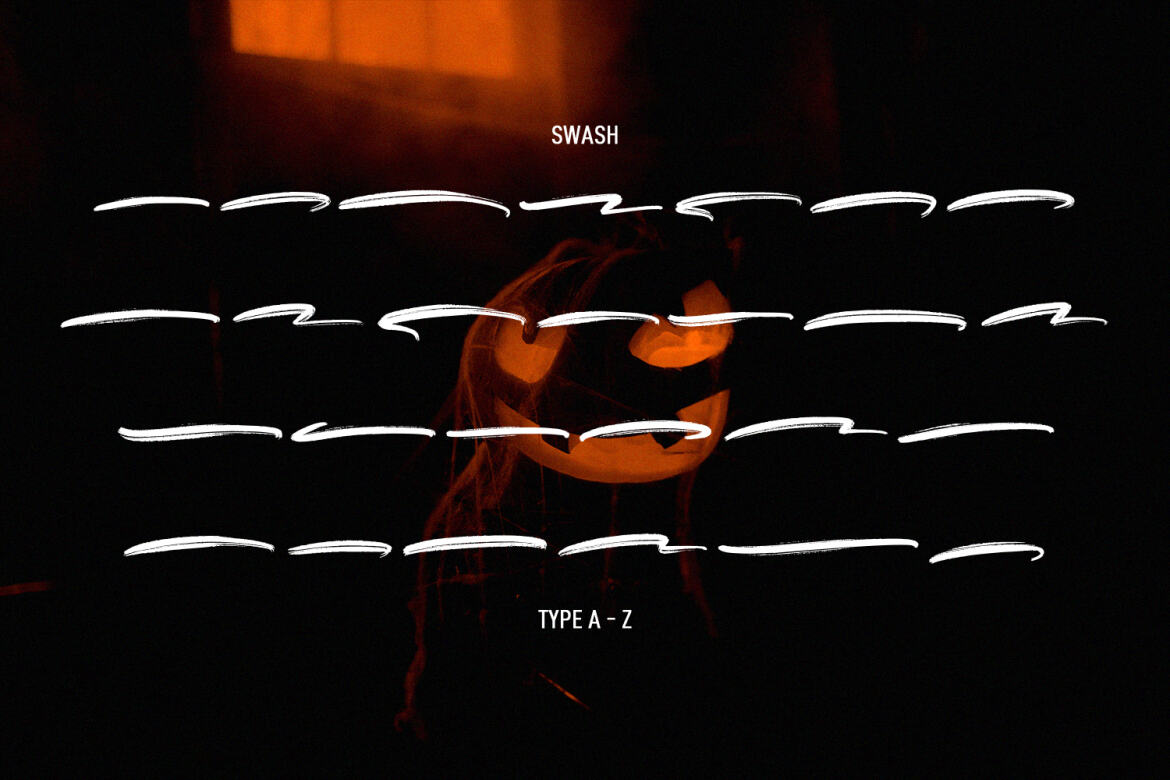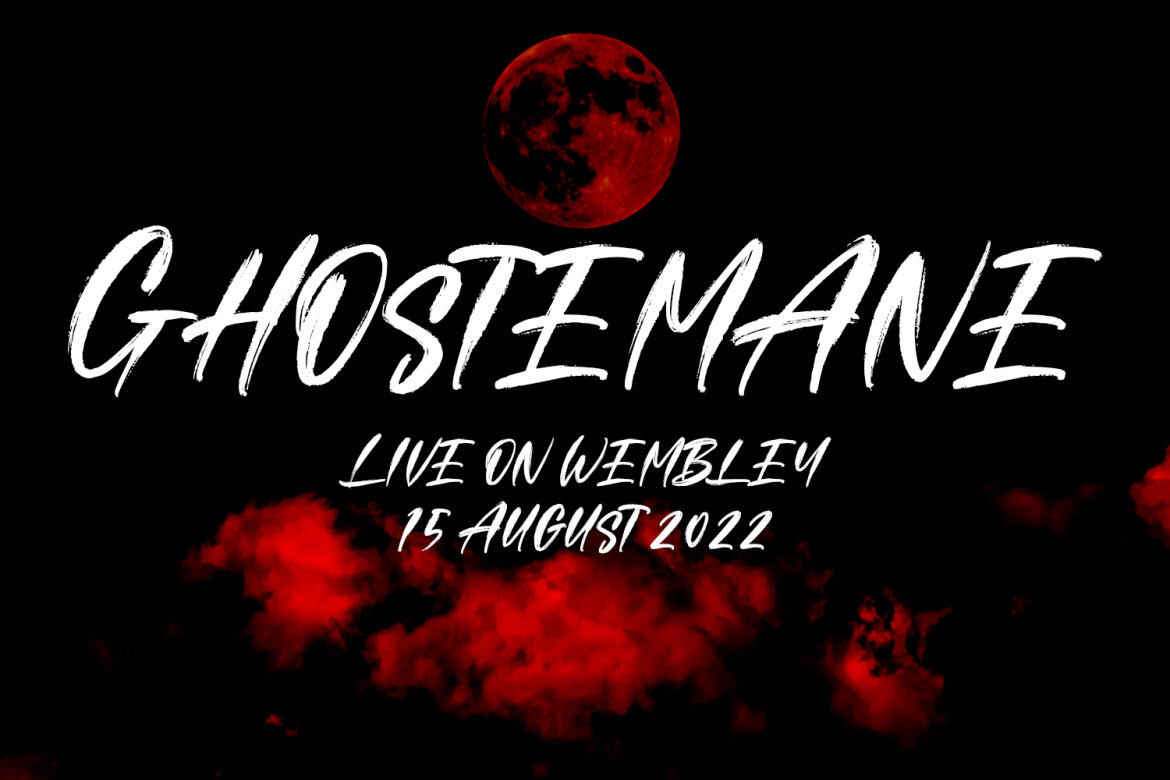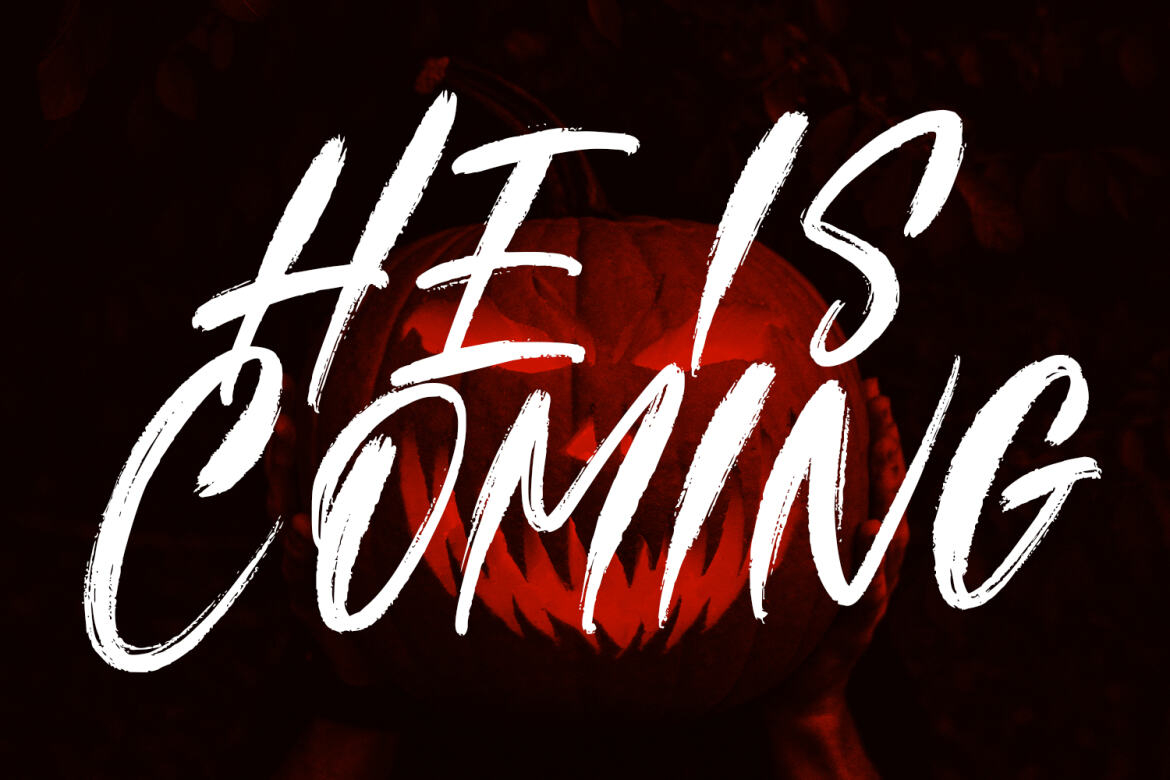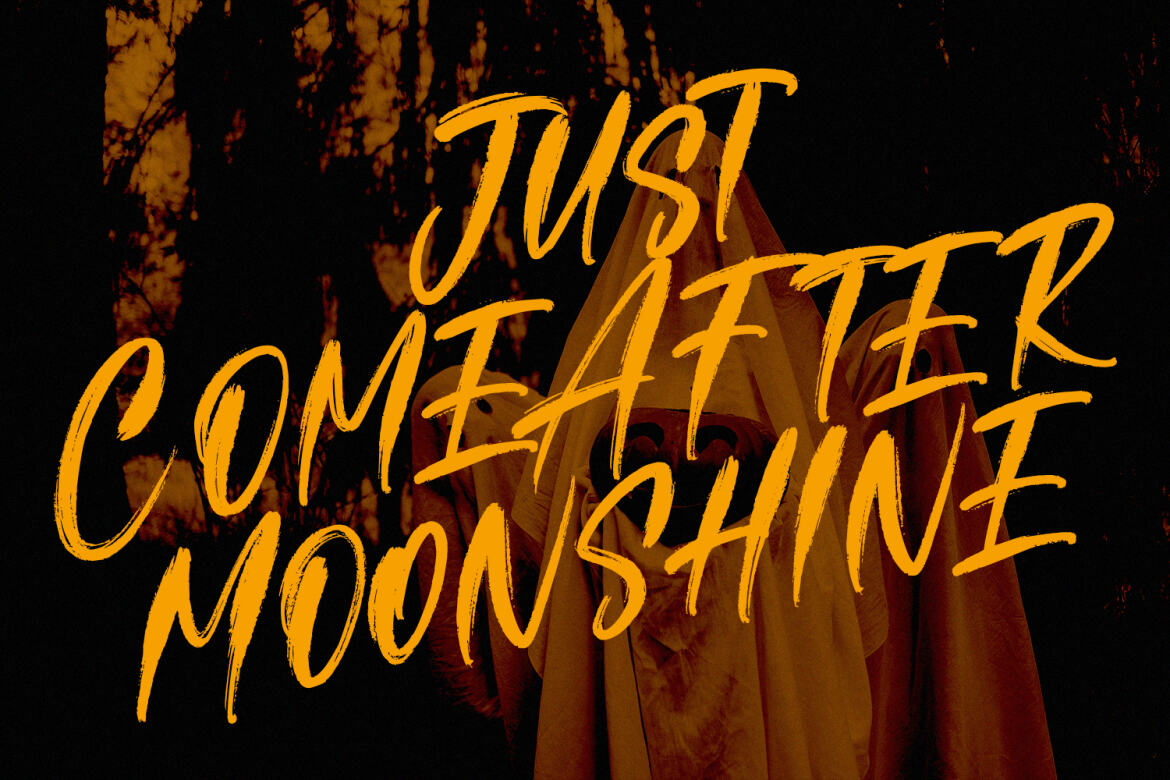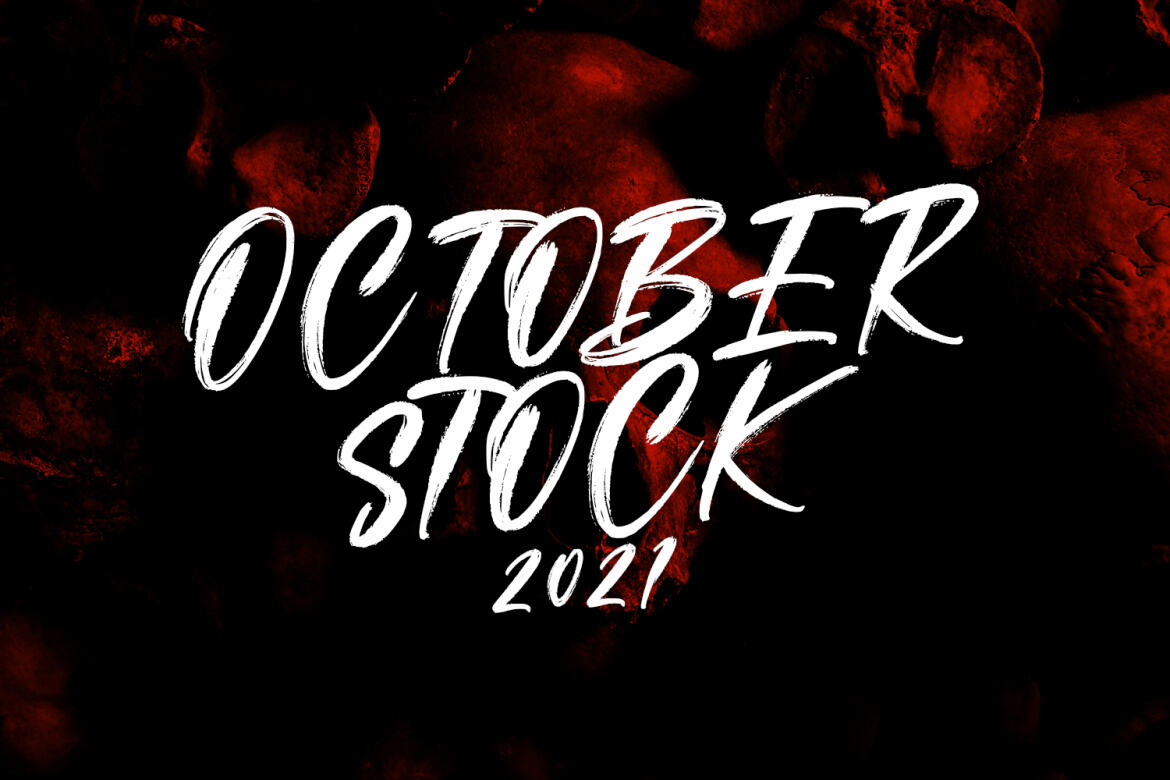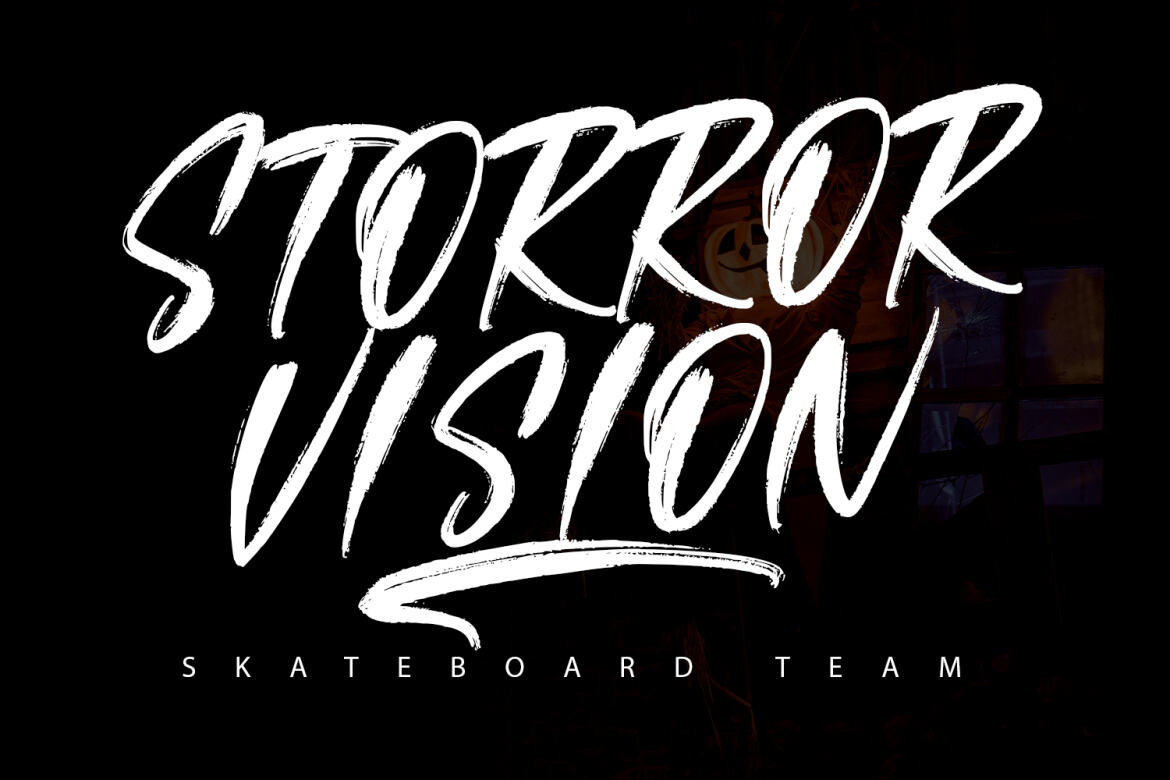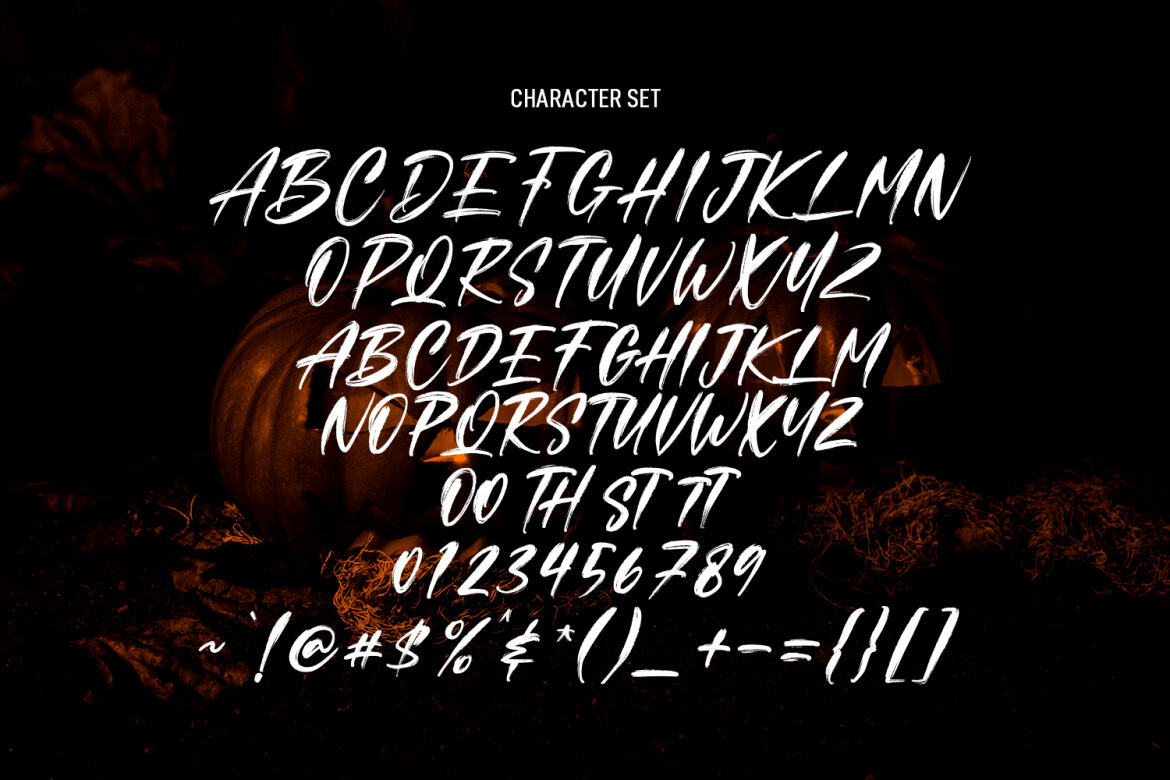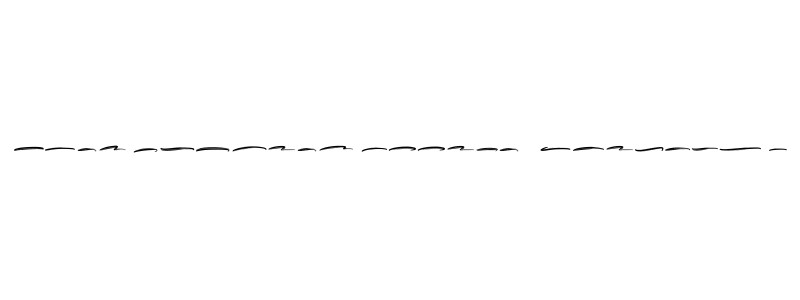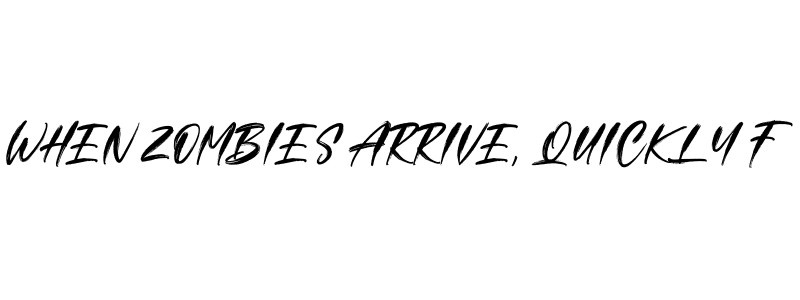
Aftercoma - FREE Brush Font
Aftercoma Swash preview
Aftercoma Swash
Aftercoma preview
Aftercoma
Aftercoma is a handwritten rough brush font. With raw brush stroke, slanted and fun character with a bit of ligatures.. To give you an extra creative work. Aftercoma font support multilingual more than 100+ language. This font is good for logo design, Social media, Movie Titles, Books Titles, a short text even a long text letter and good for your secondary text font with sans or serif. Make a stunning work with Aftercoma font.